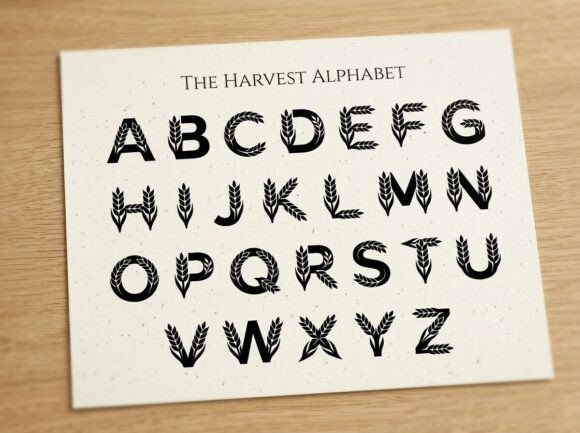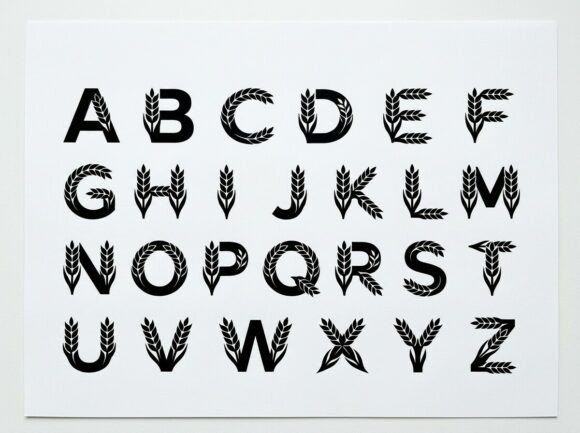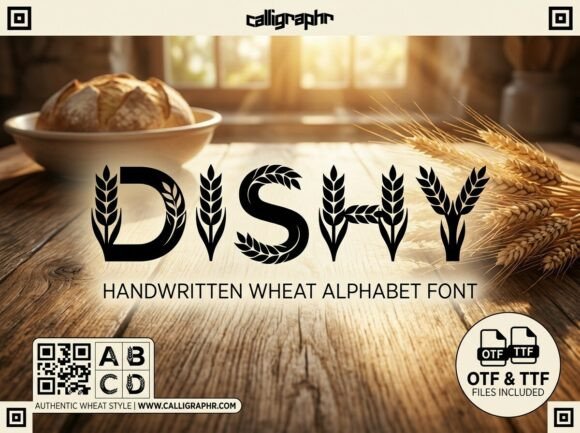
Celebrate the Bounty of Nature with Dishy Font
In the world of typography, few fonts manage to capture the essence of nature as beautifully as Dishy Font. This unique display font brings together the elegance of typography and the rustic charm of agriculture, making it a perfect choice for designers and crafters looking to add a touch of organic sophistication to their projects.
The Inspiration Behind Dishy Font
Dishy Font is artfully constructed from stylized stalks of wheat and grain, featuring rhythmic leaf patterns and elegant seed head motifs. Each character in this organic typeface is carefully designed to reflect the beauty of the natural world, making it an exceptional choice for artisanal bakery branding, organic farm logos, farm-to-table menu headers, and natural product packaging.
A Perfect Balance of Structure and Nature
One of the standout features of Dishy Font is its perfect balance between structured silhouettes and intricate botanical details. This balance gives the font a unique and captivating aesthetic that is both visually appealing and deeply rooted in the natural world. Whether you’re designing for a boutique flour brand or a seasonal harvest festival, Dishy Font delivers a sense of wholesome, handcrafted warmth and agricultural prestige to every word.
Uses for Dishy Font
Dishy Font is incredibly versatile and can be used in a variety of design projects. Here are some of the most popular uses for this beautiful font:
• Artisanal Bakery Branding: Add a touch of rustic charm to your bakery’s branding with Dishy Font. Perfect for creating eye-catching logos, packaging, and marketing materials.
• Organic Farm Logos: Create a lasting impression with Dishy Font’s elegant and natural design. Ideal for organic farm logos, farm-to-table menus, and natural product packaging.
• Farm-to-Table Menu Headers: Elevate your restaurant’s menu with Dishy Font’s beautiful and rustic design. Perfect for creating eye-catching headers and titles.
• Natural Product Packaging: Add a touch of organic sophistication to your natural product packaging with Dishy Font. Ideal for labeling and packaging for artisanal foods, organic skincare products, and more.
• Seasonal Harvest Festivals: Celebrate the bounty of nature with Dishy Font’s beautiful and festive design. Perfect for creating promotional materials, posters, and flyers for seasonal harvest festivals.
Why Choose Dishy Font?
With so many fonts available, why choose Dishy Font for your design projects? Here are just a few reasons why designers and crafters love this unique display font:
• Unique and Eye-Catching Design: Dishy Font’s stylized stalks of wheat and grain, rhythmic leaf patterns, and elegant seed head motifs make it a standout in any design project.
• Versatile and Adaptable: From artisanal bakery branding to seasonal harvest festivals, Dishy Font can be used in a wide range of design projects.
• Wholesome and Handcrafted Feel: Dishy Font delivers a sense of wholesome, handcrafted warmth and agricultural prestige to every word, making it perfect for designers and crafters looking to create organic and natural designs.
Dishy Font is a truly unique and captivating display font that brings together the elegance of typography and the rustic charm of agriculture. With its perfect balance of structured silhouettes and intricate botanical details, this font is perfect for designers and crafters looking to add a touch of organic sophistication to their projects. Whether you’re designing for an artisanal bakery, organic farm, or seasonal harvest festival, Dishy Font is sure to deliver a sense of wholesome, handcrafted warmth and agricultural prestige to every word.